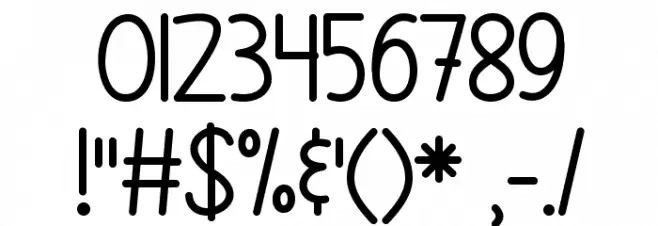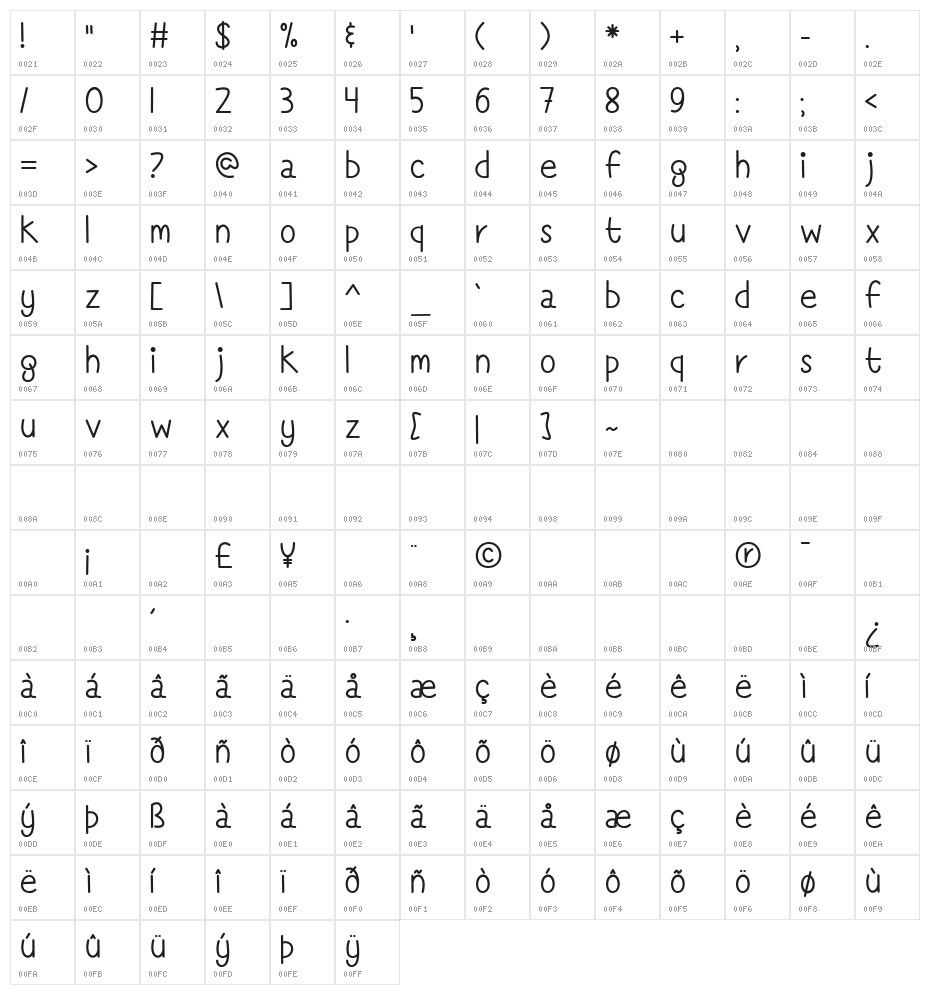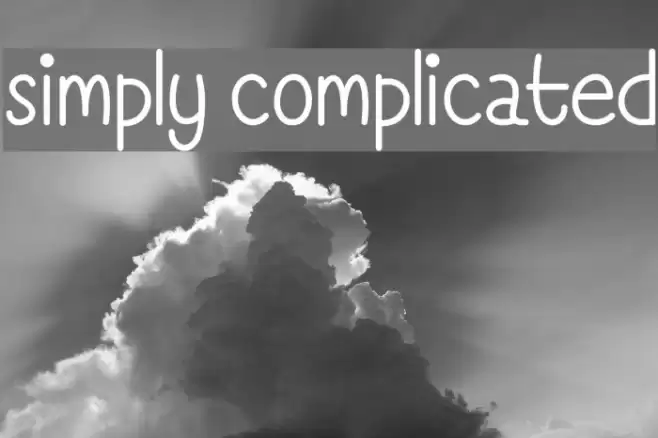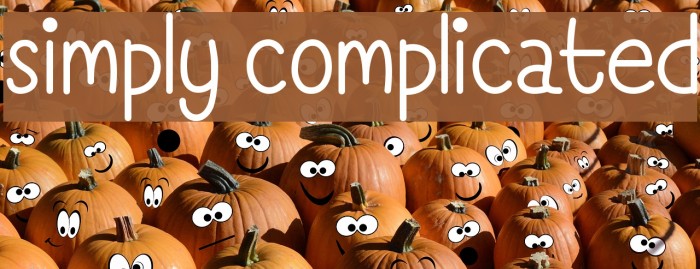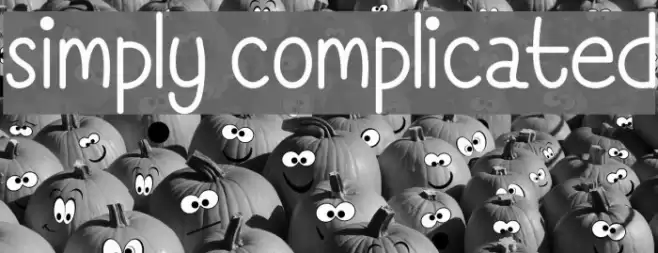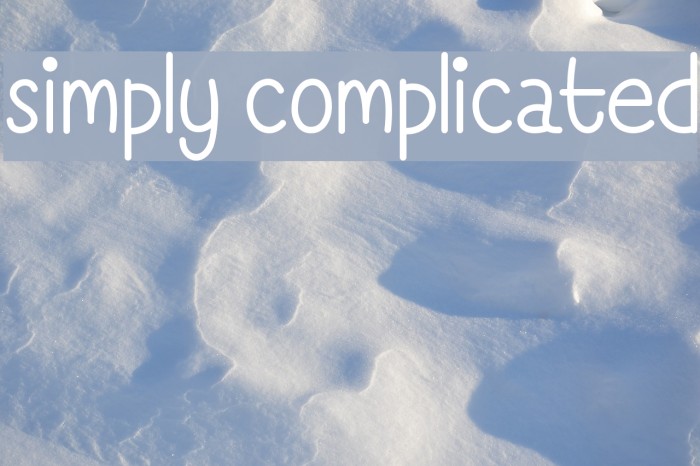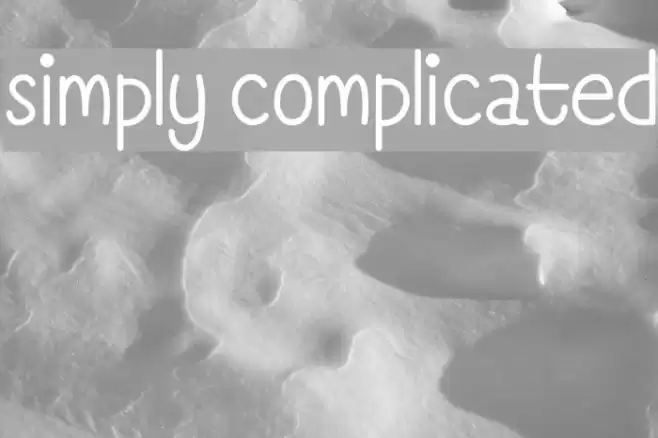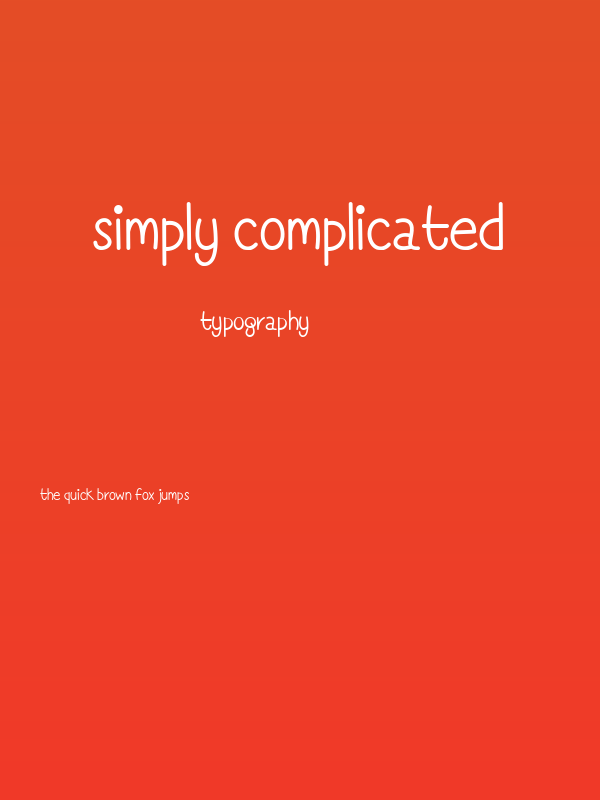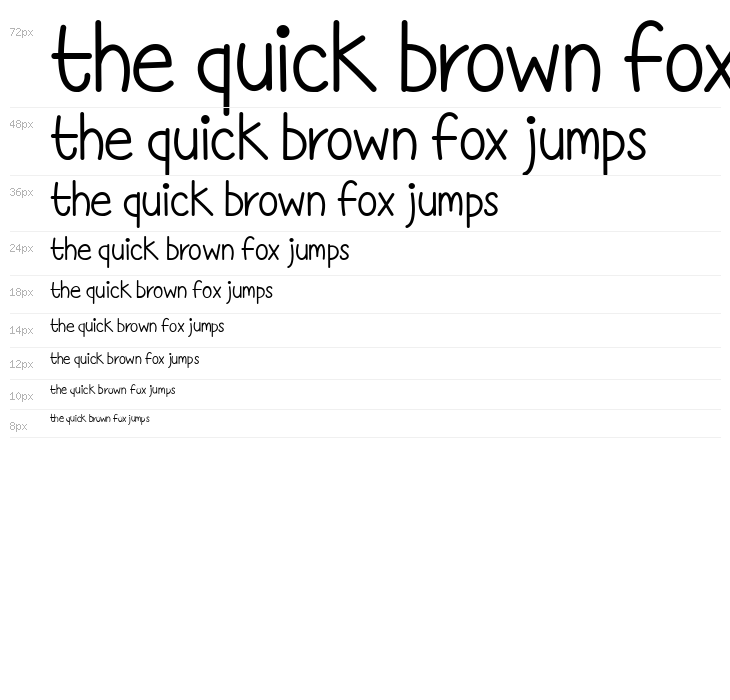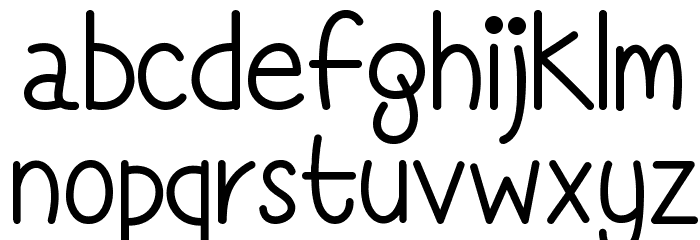
Simply Complicated Font
Simply Complicated Description
This font features a playful and rounded style, characterized by its smooth curves and friendly appearance. The letters are evenly spaced, with a consistent stroke width that gives it a clean and approachable look. The lowercase letters have a uniform height, while the uppercase letters stand slightly taller, maintaining a harmonious balance. The numerals are clear and legible, matching the overall style of the alphabet. Special characters are included, each designed to complement the font's overall aesthetic. This font is versatile, suitable for both casual and professional settings, and can add a touch of warmth and personality to any project.
| Proposed Projects | Ideal for children's books, educational materials, greeting cards, and playful branding. |